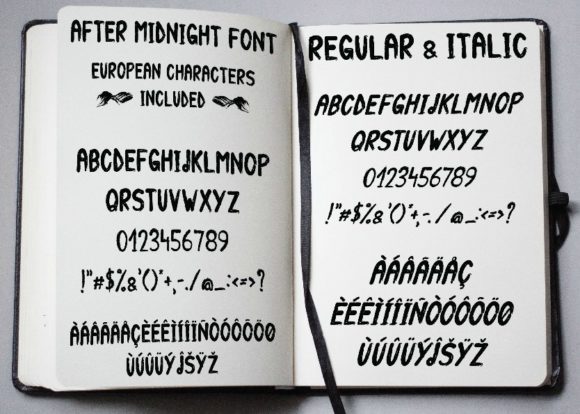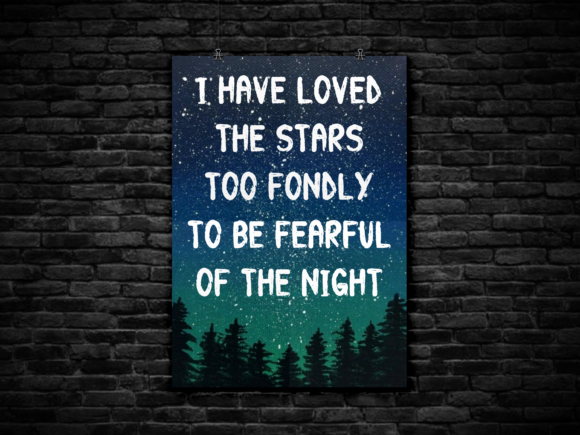
Unlock the Magic of the Night with the After Midnight Font
Have you ever found yourself brainstorming ideas late at night, the only sound being the ticking of the clock and the hum of your computer? It’s in these quiet moments that creativity often strikes, and the possibilities seem endless. For designers, this is the perfect time to bring their vision to life, and the right font can make all the difference.
Enter the After Midnight Font, a cool, bold, and brushed display font designed to make your creative projects stand out. With its versatility and unique aesthetic, it’s the perfect addition to any design. Whether you’re working on a bold campaign or a sleek brochure, the After Midnight Font is sure to elevate your design and make it truly unforgettable.
Key Features of After Midnight Font
- Font Family: After Midnight
- Font Styles: Regular, Italic, Bold, Bold Italic
- Unique Characteristics: Distressed, vintage-inspired design with a modern twist, featuring subtle texture and grunge effects
Designer Review: After Midnight Font
I recently had the chance to work with the After Midnight Font, and I must say it’s a unique and intriguing addition to any design project. ✨
- Unique blend of modern and vintage elements: After Midnight Font seamlessly combines the elegance of classic typography with the edginess of modern design.
- Highly customizable: This font offers a wide range of variations, making it easy to tailor it to your specific design needs.
- Great for creating a sense of mystery and intrigue: After Midnight Font is perfect for projects that require a touch of sophistication and elegance.
- Limited legibility in small sizes: Due to its complex design, After Midnight Font can be difficult to read when used in smaller font sizes.
- Not ideal for body text: While this font is great for headlines and titles, it may not be the best choice for large blocks of text.
Overall, I think the After Midnight Font is a great choice for designers who want to add a touch of sophistication and elegance to their projects. However, it’s essential to use it judiciously, taking into account its limitations.
After Midnight Font is ideal for:
1. Urban and streetwear designs.
2. Modern and edgy marketing materials.
3. Fashion and lifestyle branding.